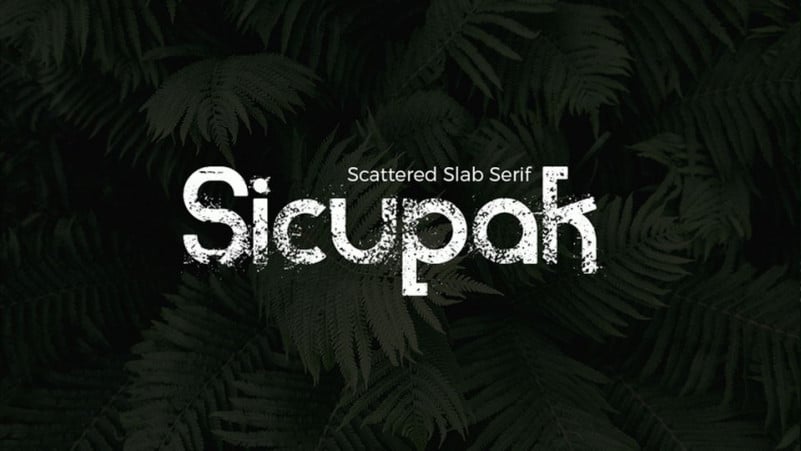
Sicupak Display Font is a rustic font suitable for designs that require a vintage and classic feel. Sicupak is a scattered slab serif font manufactured by Jarnawi Saja . It comes with full uppercase, lowercase letters, numbers and symbols. This font looks great for grunge design projects, headlines, posters, prints and other artworks.